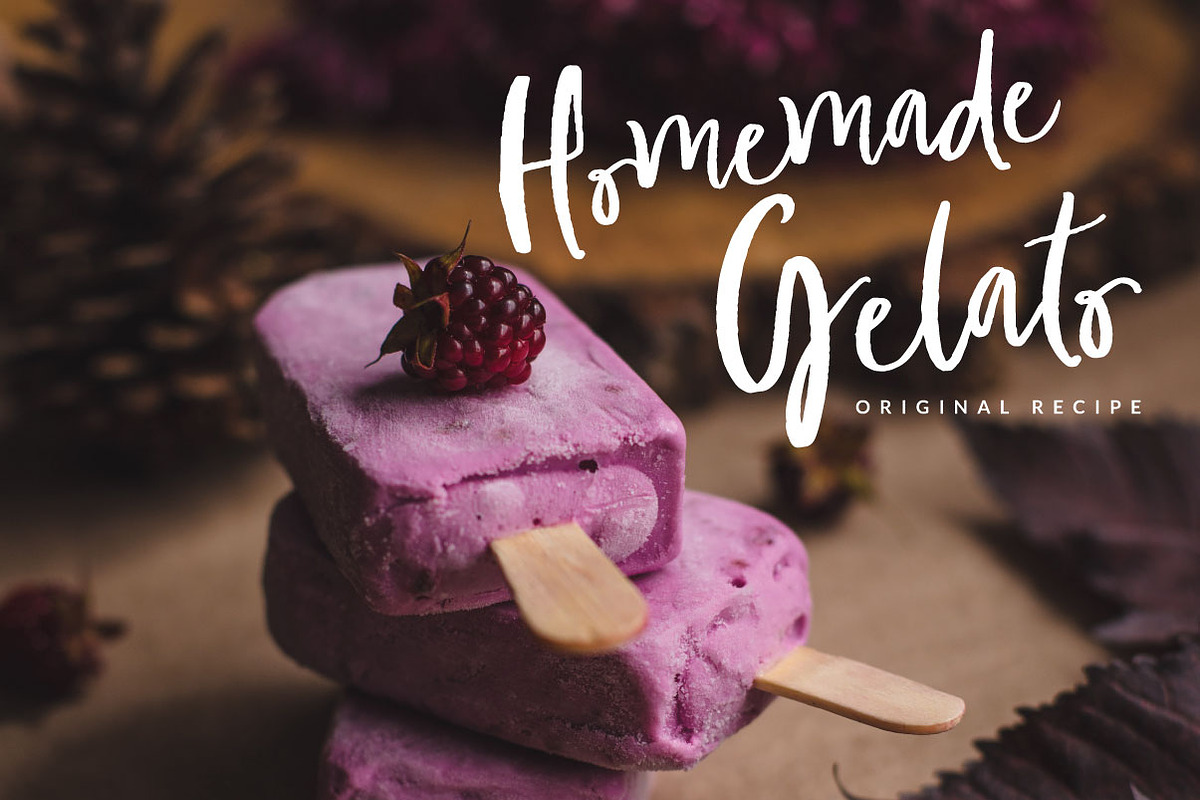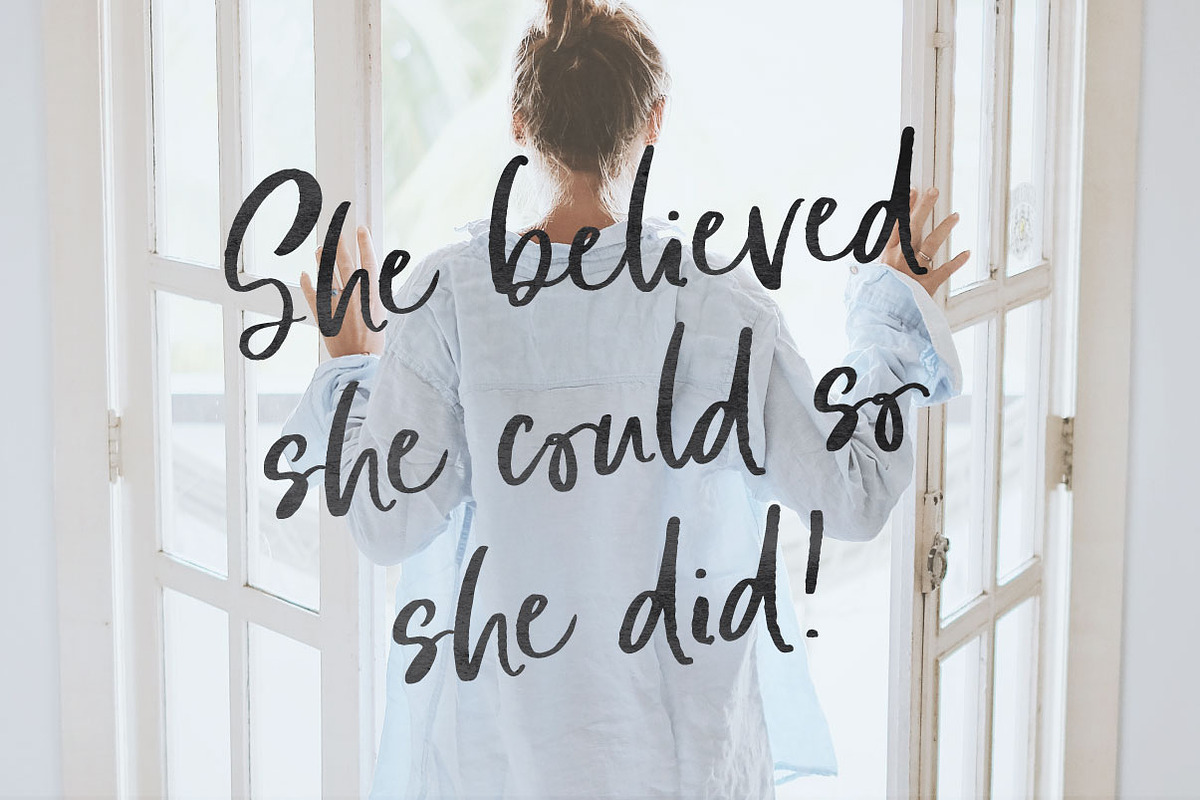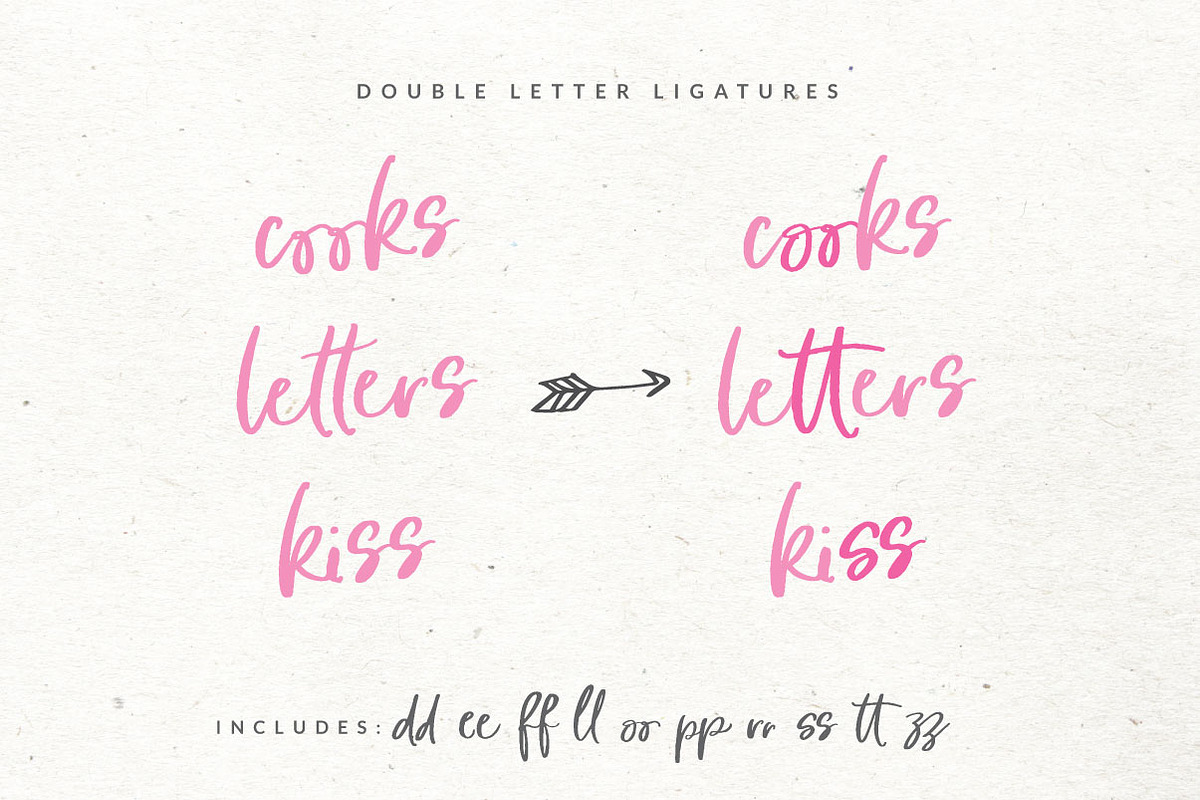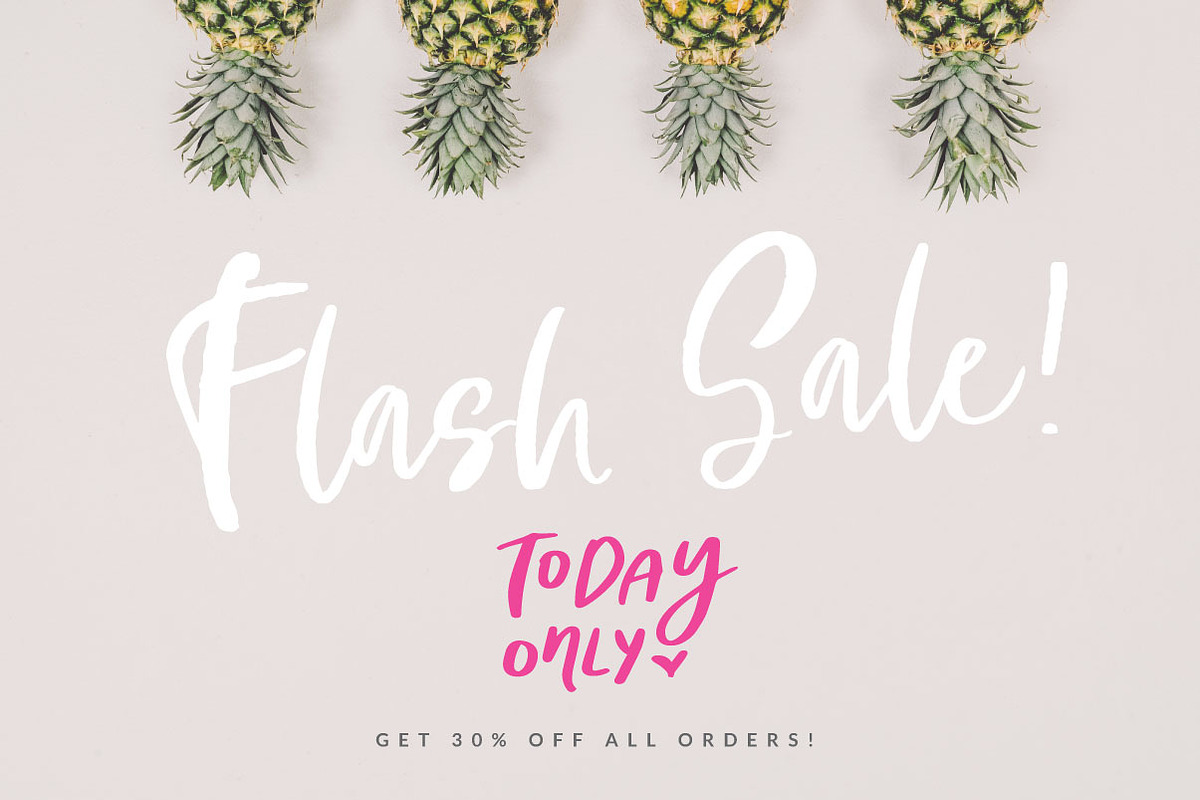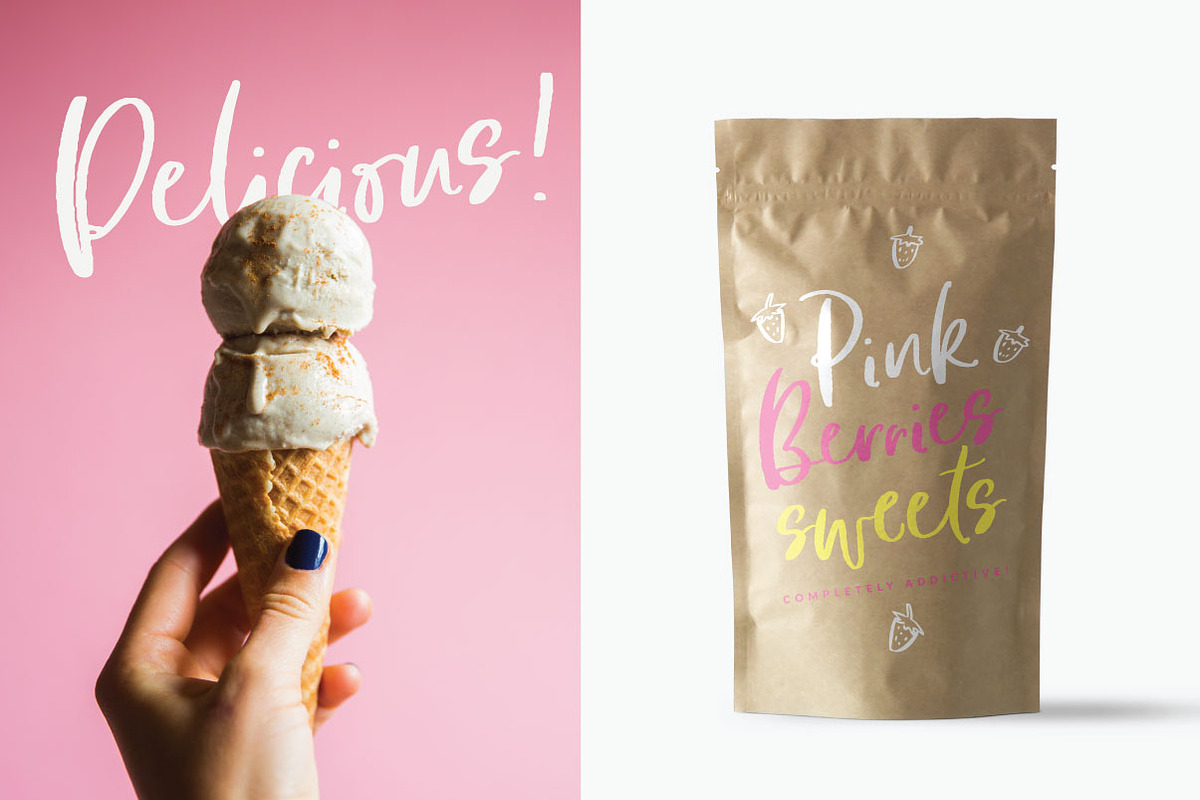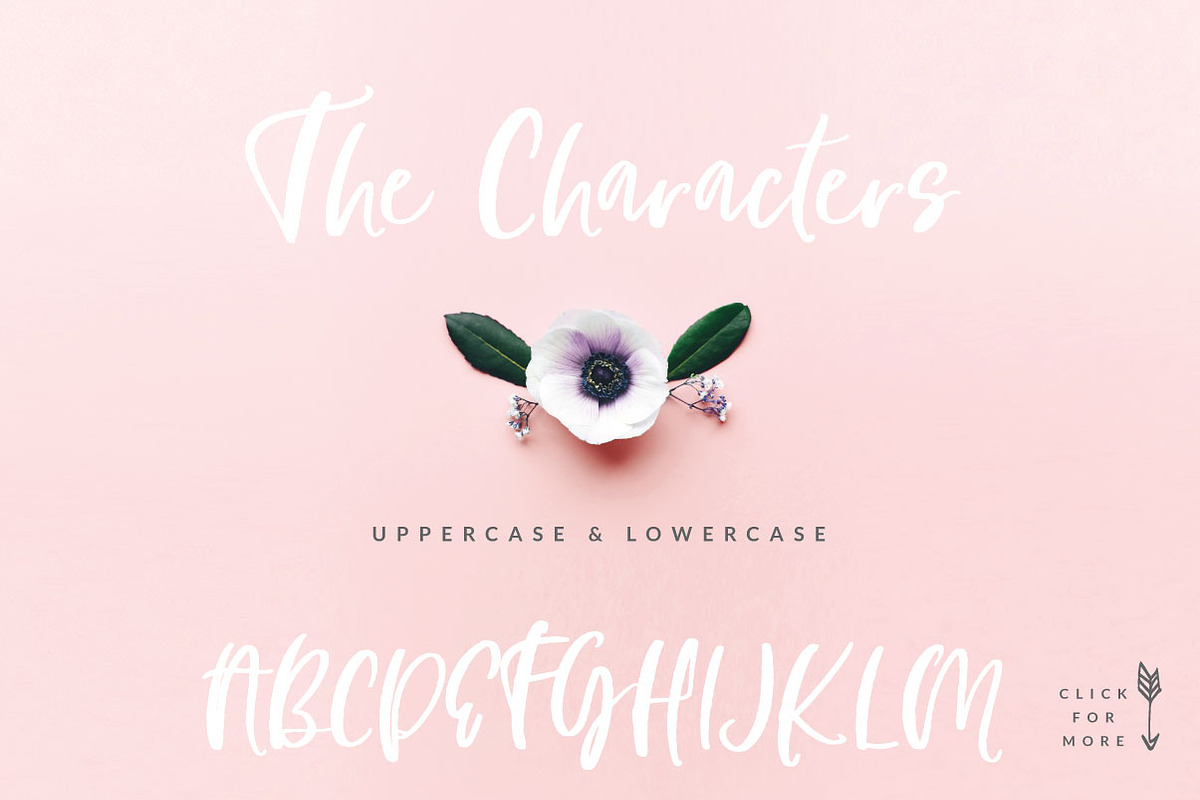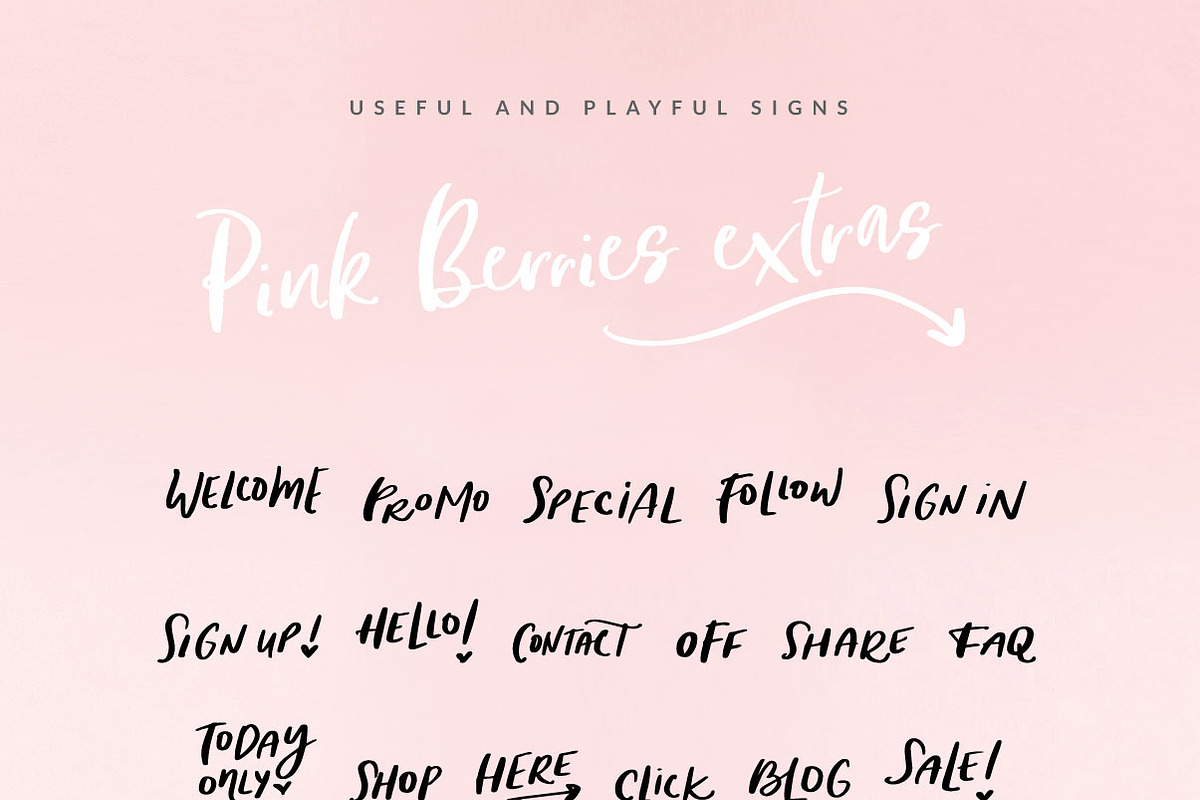
Pink Berries Script font + Extras
Pink Berries is a hand-stroked script font with a casual touch. If you're looking for a feminine stylistic typeface for your designs this is the perfect option. It works great with printables such as magazines, products, packaging, stationary and greetings. As well as digital applications for web, newsletter headings, Promo/Offer announcements, social media branding and more.
This font includes standard double letter ligatures to achieve an even more natural look when composing certain letters. On top of that, you'll discover a Bonus Dingbat font with tons of quote graphics completely useful for your designs: "Welcome", "Special", "Sign in", "Shop", "Sale!", "About", "Free", "Today Only", "Pin It!" and many more.
Full upper and lowercase
Accents (Multi-lingual support)
Traditional Double Letter Ligatures
Bonus font including dingbat graphics and brushes